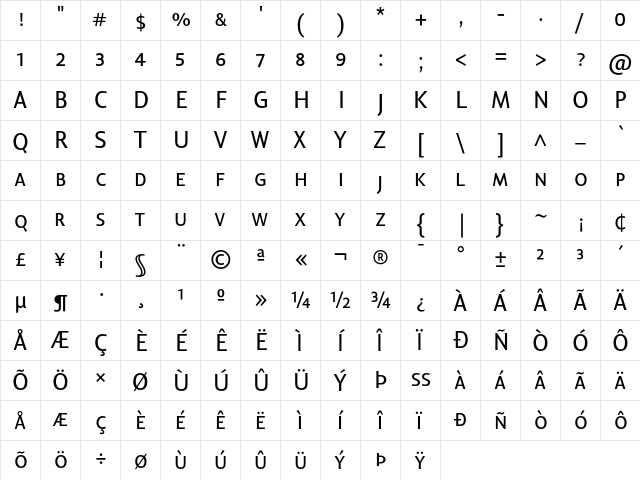
Lisboa Sans SC Regular
Design Context for Lisboa Sans SC Typeface
Lisboa Sans SC takes a measured approach to typography — its balanced proportions and neutral character make it a reliable workhorse for both digital and print work.